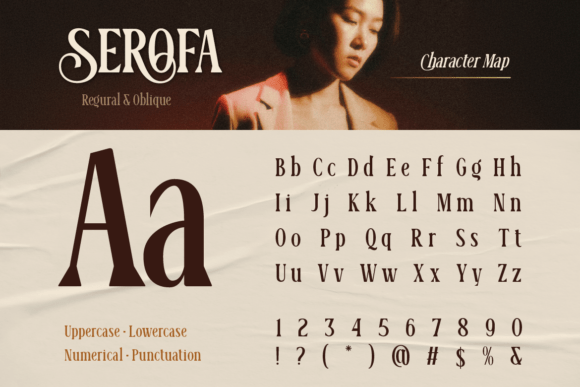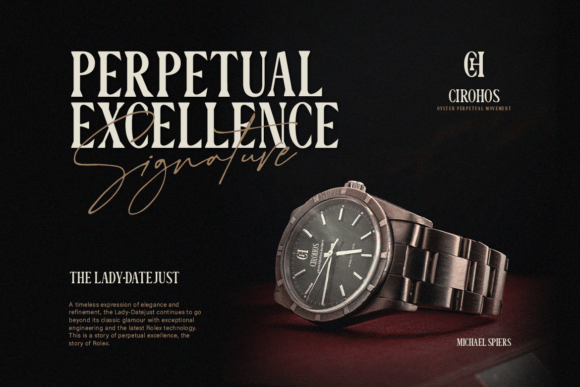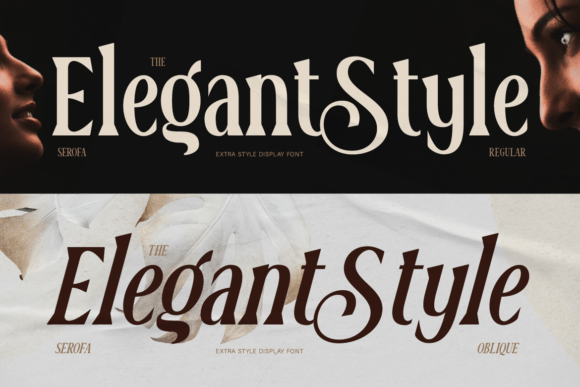
Serofa Font
Say hello to Serofa! A stylish serif font that brings a touch of classy elegance and modern luxury. With its bold letterforms and decorative curves, Serofa strikes the perfect balance between strength and sophistication.Featuring stylish ligatures, this font makes it easy to create stunning designs effortlessly. Perfect for luxury branding, fashion, magazines, cosmetics, wedding invitations, logos, and any design project that needs a classy and elegant touch.